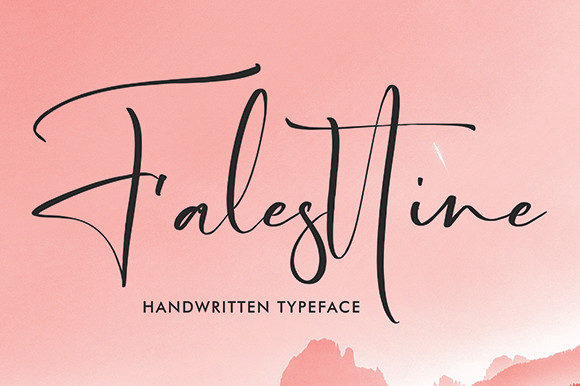
Fallestine Font: A Romantic and Sweet Calligraphy Typeface
Are you looking for a font that can add a touch of romance and sweetness to your designs? Look no further than the Fallestine Font. This beautiful calligraphy typeface is perfect for a variety of projects, from logos and wedding invitations to headings, t-shirts, and more.
What is Fallestine Font?
Fallestine is a romantic and sweet calligraphy typeface with characters that dance along the baseline. Its elegant and flowing design makes it perfect for adding a touch of sophistication and whimsy to any design project. The font features beautiful, hand-crafted characters that are sure to capture the attention of your audience.
What Can I Use Fallestine Font For?
Fallestine Font is a versatile typeface that can be used for a wide range of purposes, including:
- Logos: Add a touch of elegance and sophistication to your logo with Fallestine Font.
- Wedding Invitations: Make your wedding invitations truly special with this beautiful calligraphy font.
- Headings: Use Fallestine Font to add a touch of whimsy and romance to your headings and titles.
- T-Shirts: Create unique and eye-catching t-shirt designs with Fallestine Font.
- Letterhead: Add a touch of professionalism and elegance to your letterhead with this beautiful font.
- Signage: Use Fallestine Font to create eye-catching signage that will capture the attention of your audience.
- Labels: Add a touch of sweetness and charm to your labels with Fallestine Font.
- News: Use Fallestine Font to add a touch of elegance and sophistication to your news articles and publications.
- Posters: Create eye-catching posters with Fallestine Font that will capture the attention of your audience.
- Badges: Use Fallestine Font to create unique and eye-catching badges that will make your brand stand out.
Features of Fallestine Font
Fallestine Font has a number of features that make it a great choice for your design projects. Some of its key features include:
- Beautiful, hand-crafted characters
- Elegant and flowing design
- Characters that dance along the baseline
- Perfect for adding a touch of romance and sweetness to your designs
- Versatile and can be used for a wide range of purposes
Tips for Using Fallestine Font
Here are a few tips for using Fallestine Font in your design projects:
- Use it sparingly: Fallestine Font is a beautiful and elegant font, but it can be overwhelming if used too much. Use it sparingly to add a touch of sophistication and whimsy to your designs.
- Pair it with other fonts: Fallestine Font pairs well with a variety of other fonts, including serif and sans-serif fonts. Experiment with different pairings to find the one that works best for your design.
- Use it in large sizes: Fallestine Font is perfect for headings and titles, so use it in large sizes to make a big impact.
- Experiment with colors: Fallestine Font looks great in a variety of colors, so experiment with different colors to find the one that works best for your design.
Fallestine Font is a beautiful and elegant calligraphy typeface that is perfect for adding a touch of romance and sweetness to your design projects. With its elegant and flowing design, beautiful hand-crafted characters, and versatility, Fallestine Font is a great choice for a wide range of purposes, from logos and wedding invitations to headings, t-shirts, and more. So why wait? Download Fallestine Font today and start creating beautiful designs that will capture the attention of your audience.